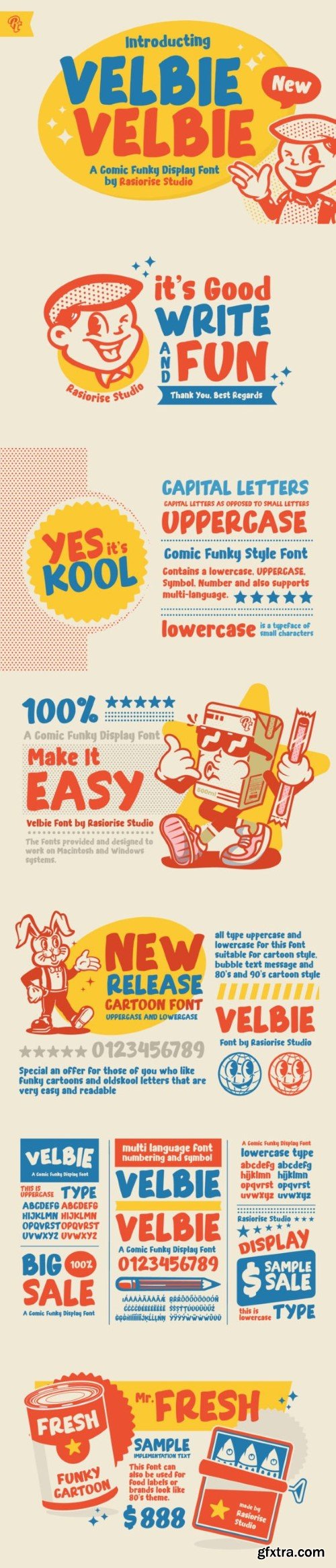
威尔比字体
Velbie has been released for those of you who are looking for a very creative retro/funky cartoon font.You can explore your creativity by creating a simple retro/funky cartoon text.